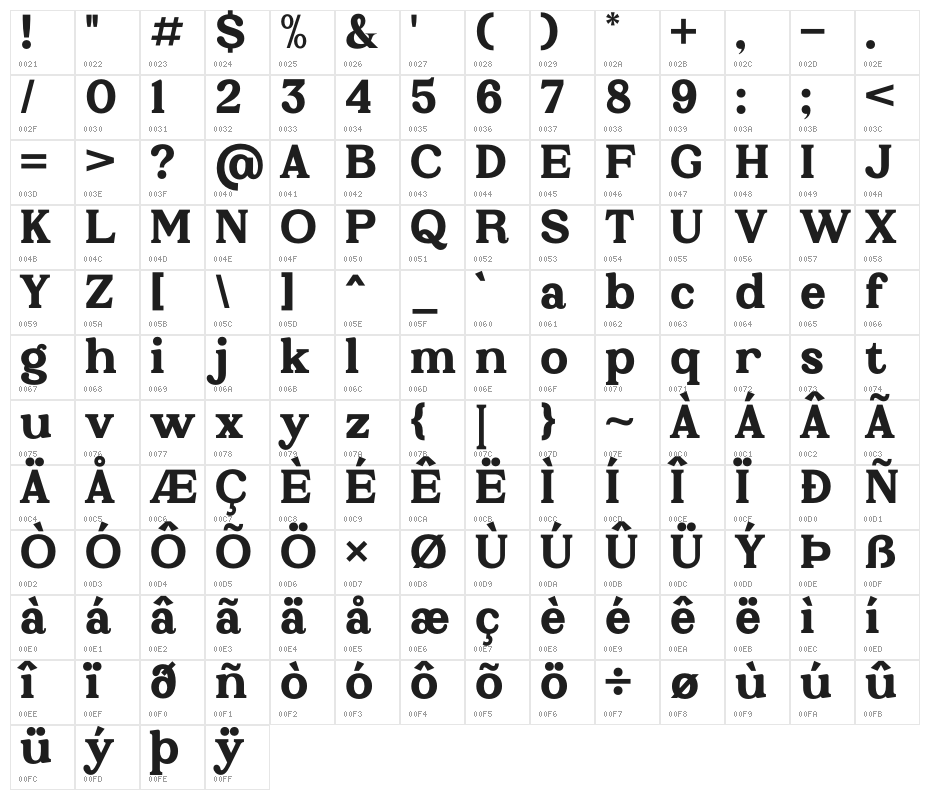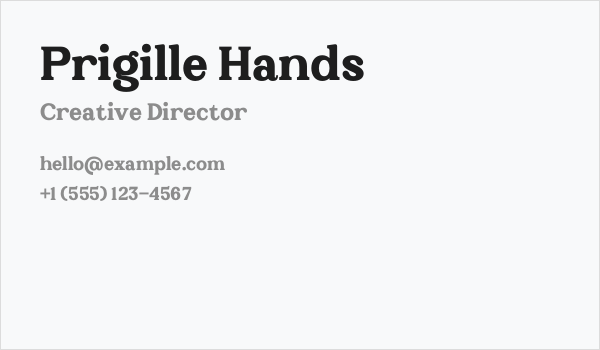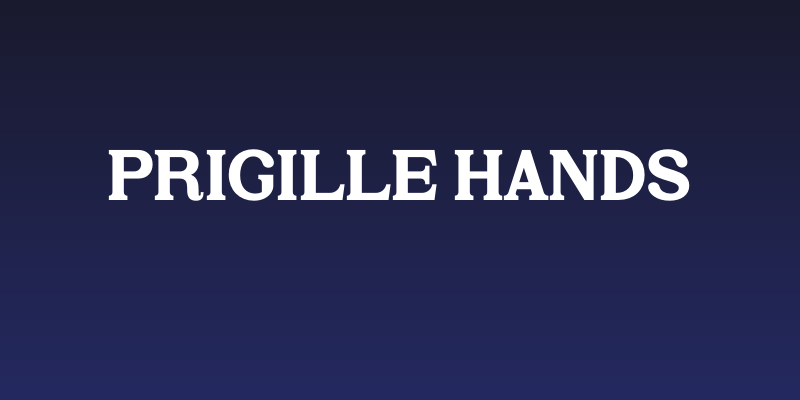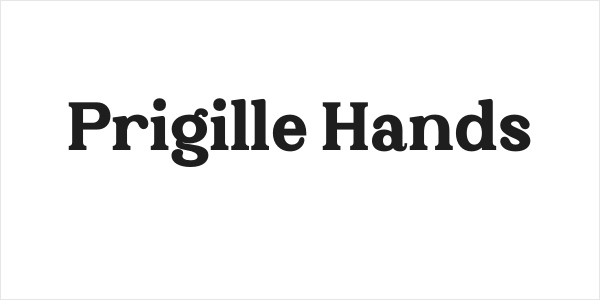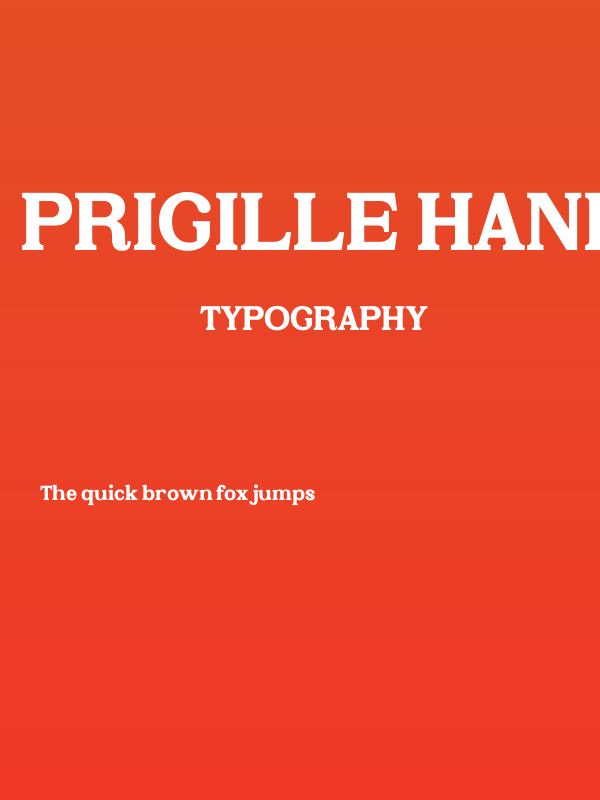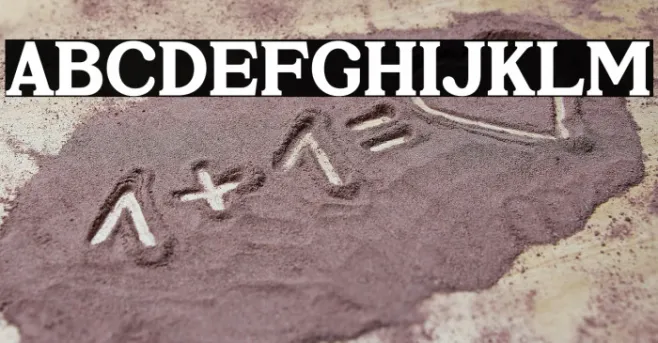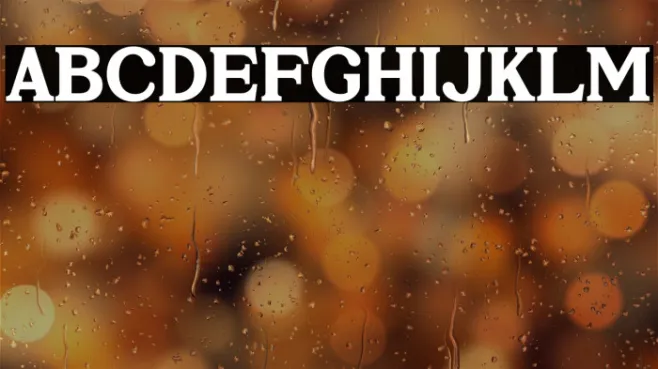
Prigille Hands Font
Prigille Hands Description
This font features a bold and robust serif style, characterized by thick strokes and strong presence. The uppercase letters are prominent with a classic serif design, while the lowercase letters maintain a consistent weight, offering a harmonious balance. The numerals are clear and legible, making them suitable for various applications. Special characters are well-defined, adding to the font's versatility. The overall design exudes a sense of authority and tradition, making it ideal for projects that require a touch of elegance and strength.
| Use Case | Headlines, Logos, Editorial design |
| Proposed Projects | Ideal for book covers, headlines, branding, and editorial design. |